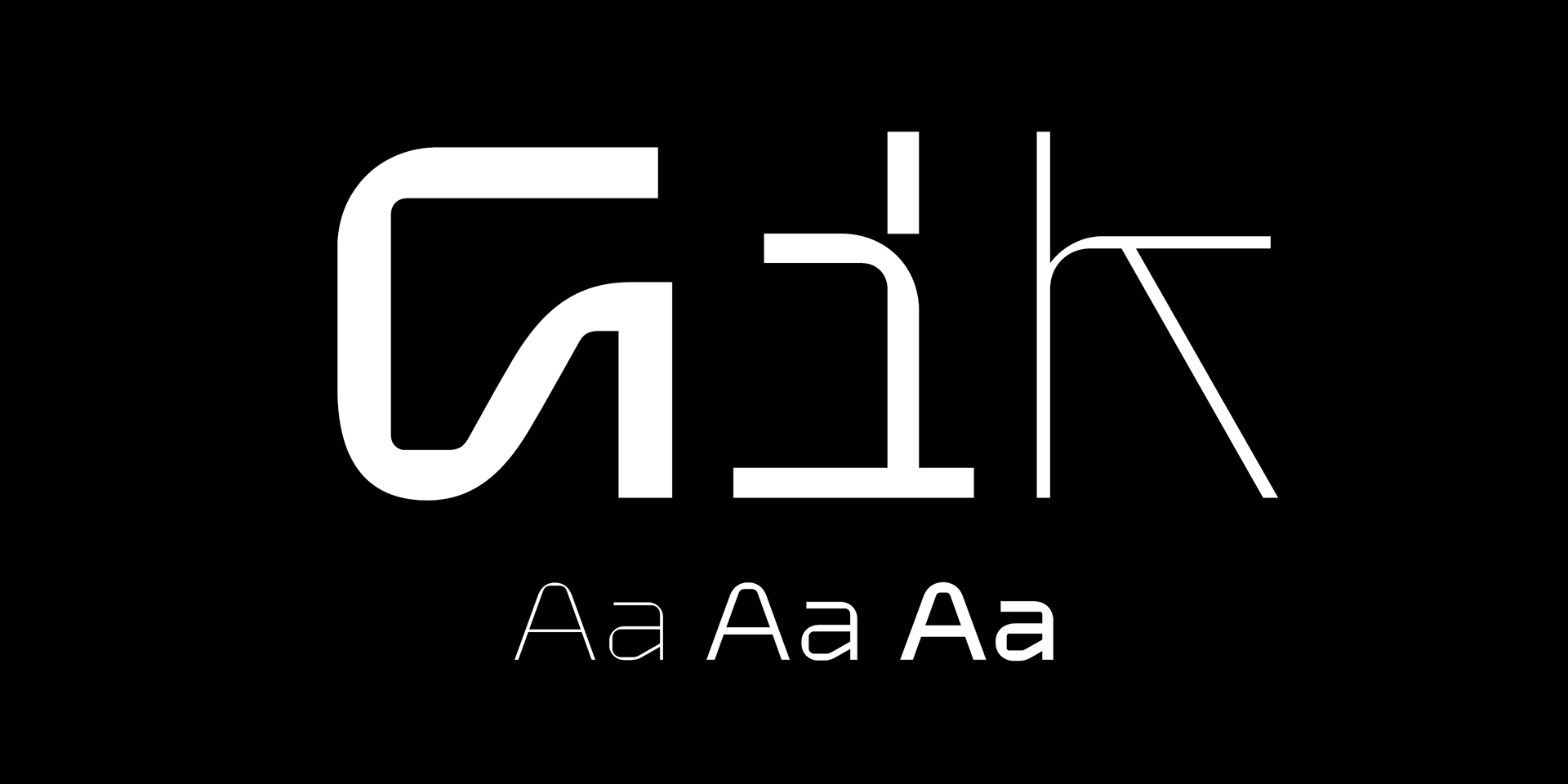
Gik
Designed by Denis Serebryakov, Gik is a display sans font family. This typeface has three styles and was published by Serebryakov.
Gik is sans serif font family with modular aesthetic and the elegance of contemporary typography. Its compositional and plastic solution combines echoes of (de)constructivism, brutalism, de Stijl and other manifestations of 20th century antiquity + techniques characteristic of italics. But this does not make the font old-fashioned — on the contrary, it helps to understand how to use it.
Gik is a product of the metamodernism era — it is on the border between modernist enthusiasm and postmodernist mockery, between simplicity and awareness, wholeness and cleavage, clarity and ambiguity — a kind of conceptual oxymoron. Looking at Gik, you could imagine it at Fashion Week, if there was one for typography. Gik has a message for both the designer and the viewer, it stimulates the imagination, it is the anthology of all fonts of the future.